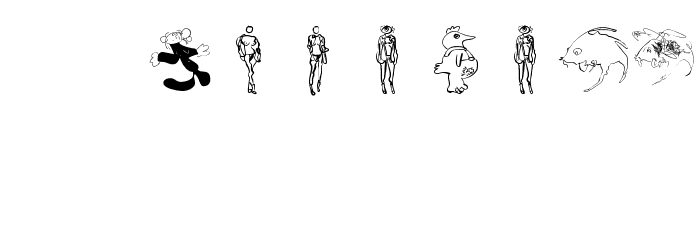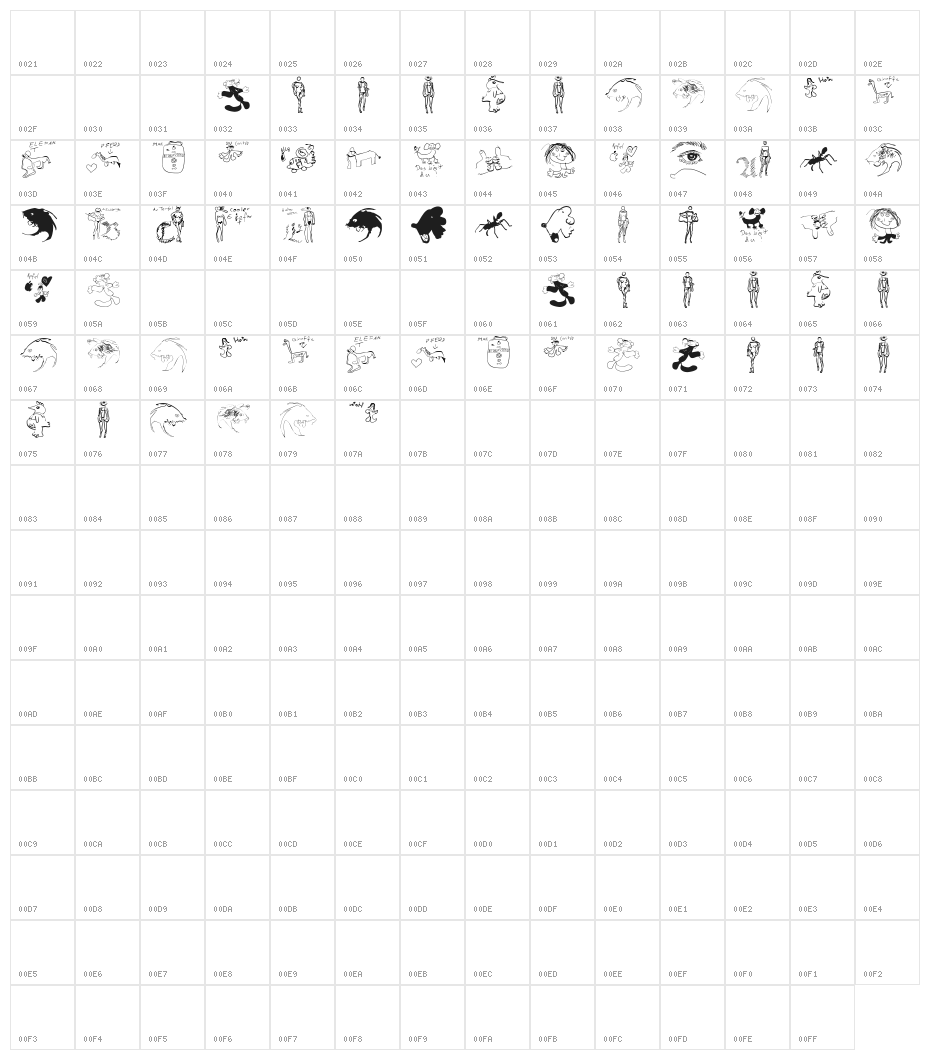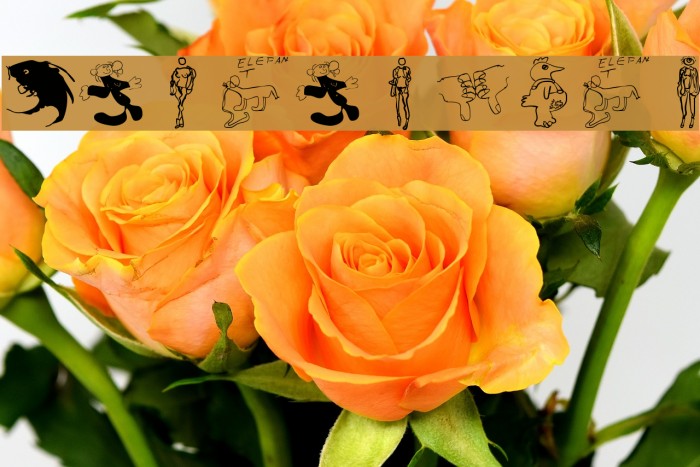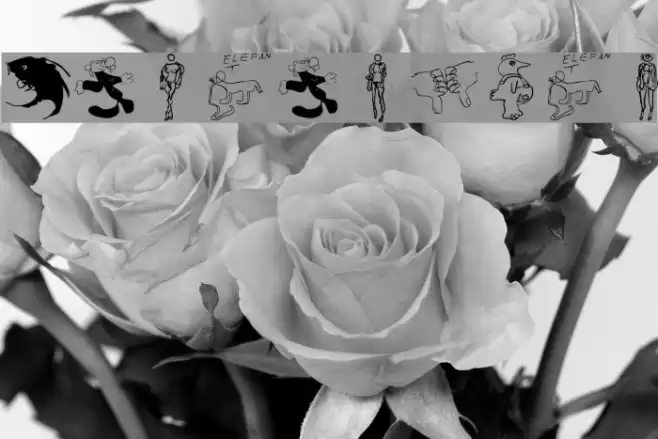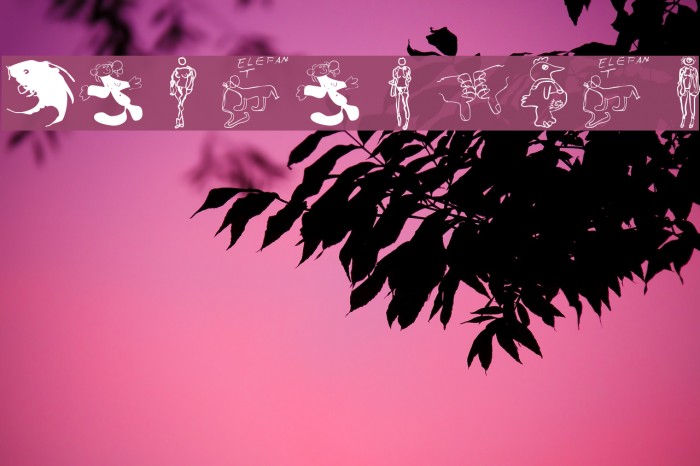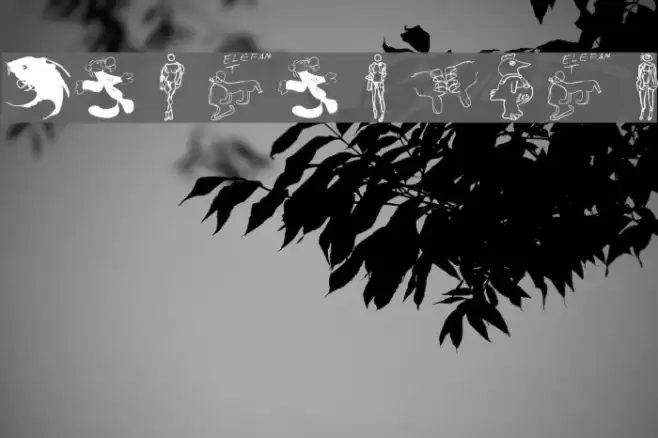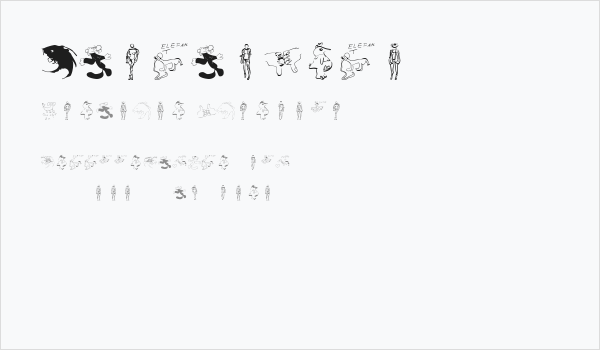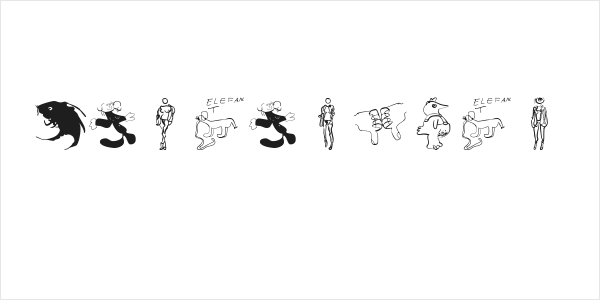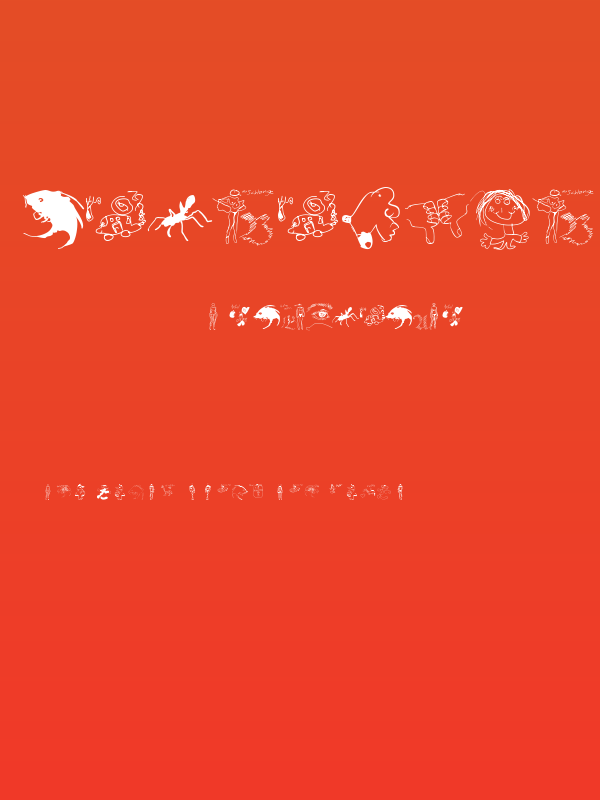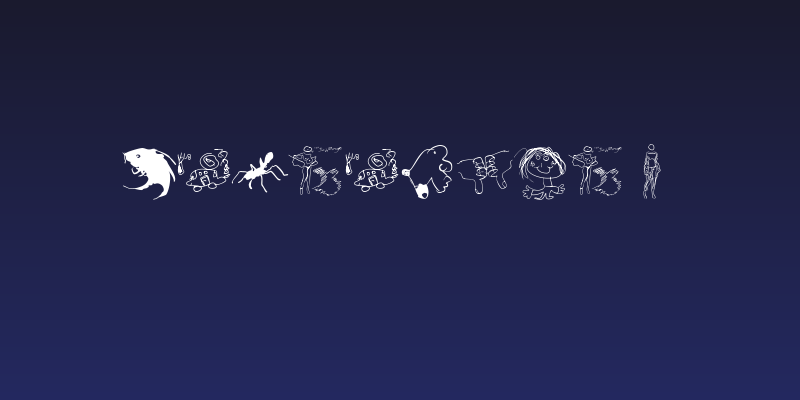
KarlasWelt Font
KarlasWelt Description
A highly decorative and whimsical collection of hand-drawn illustrations and doodles, each representing a different character, animal, or abstract figure in place of traditional alphanumeric glyphs. The style is playful, sketch-like, and cartoonish, with varying line thickness and a casual, spontaneous feel.
| Overall Style | Decorative, Whimsical, Artistic |
| Use Case | Logos, Posters, Art projects, ChildrenΓ’β¬β’s materials |
| Proposed Projects | ChildrenΓ’β¬β’s books, comic strips, creative posters, greeting cards, playful branding, art projects. |